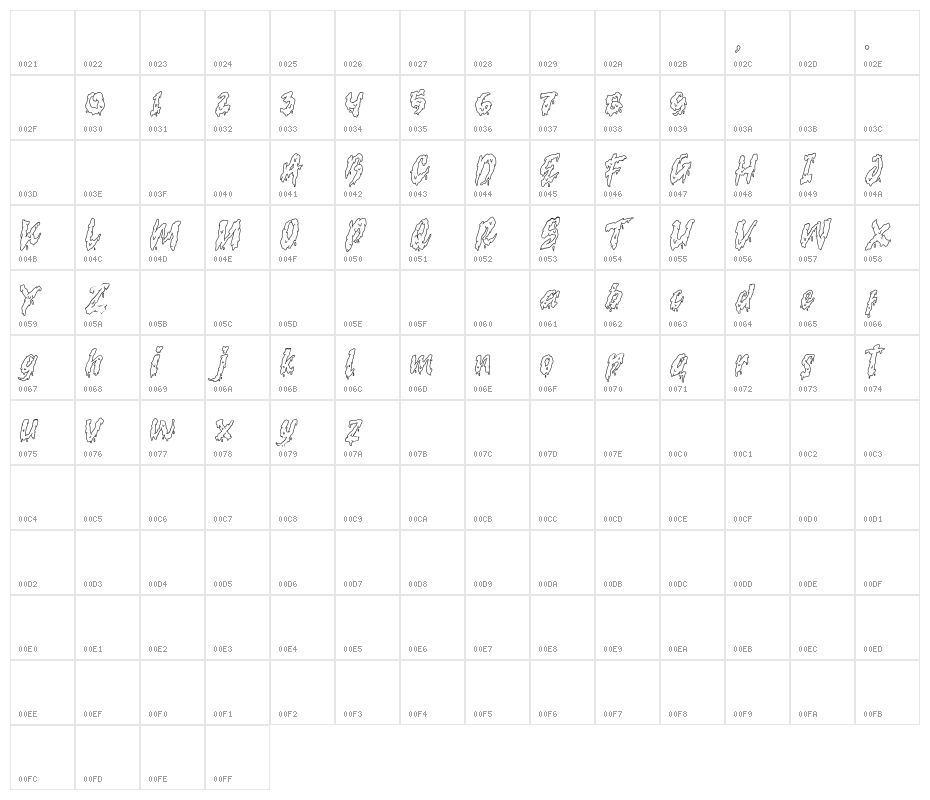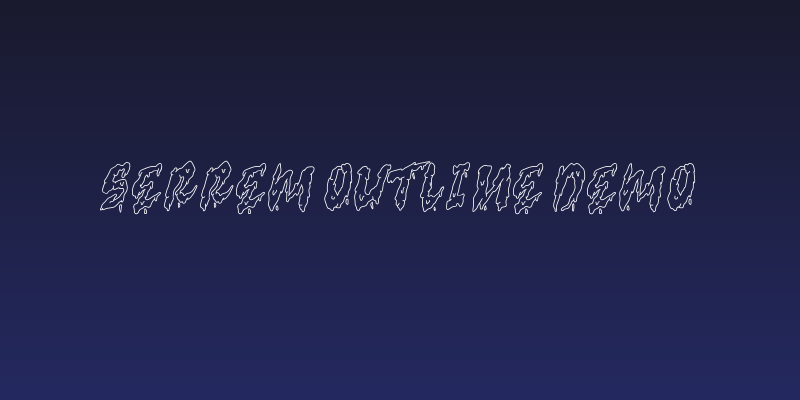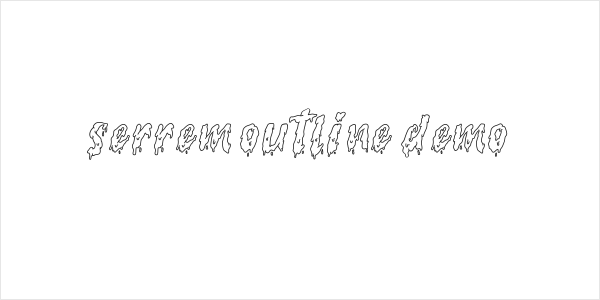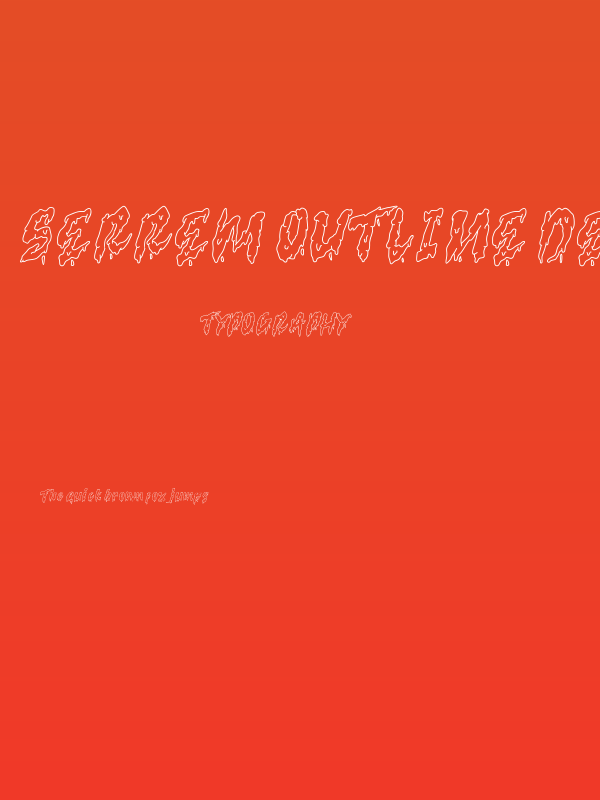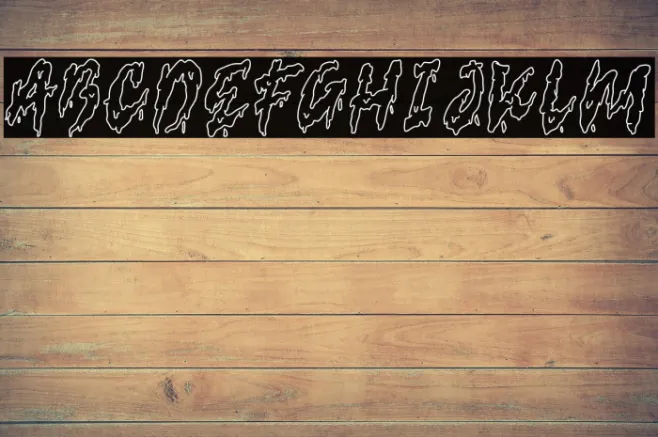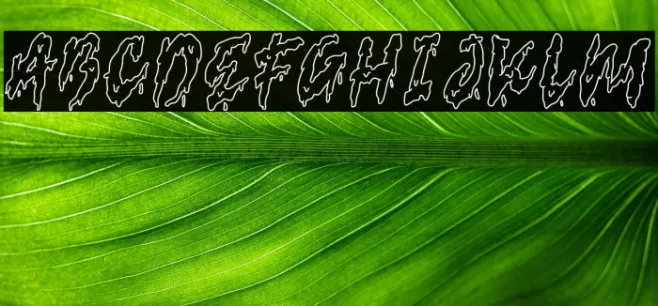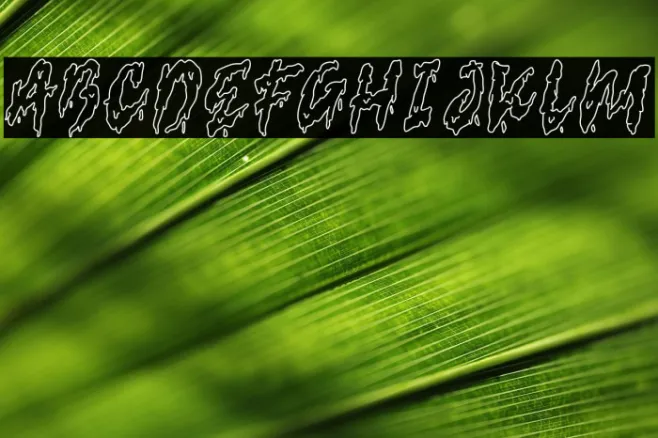
serrem outline demo Font
serrem outline demo Description
This font features a unique, dripping outline style that gives it a melting or liquid appearance. The characters are bold and have an irregular, organic shape, making them stand out with a playful yet slightly eerie vibe. The uppercase and lowercase letters maintain a consistent style, with the uppercase being slightly larger and more pronounced. Numbers and special characters follow the same design, ensuring uniformity across all glyphs. This font is ideal for creative projects that require a distinctive and eye-catching look, such as Halloween-themed designs, posters, or album covers.
| Proposed Projects | Ideal for Halloween designs, posters, album covers, and creative branding. |